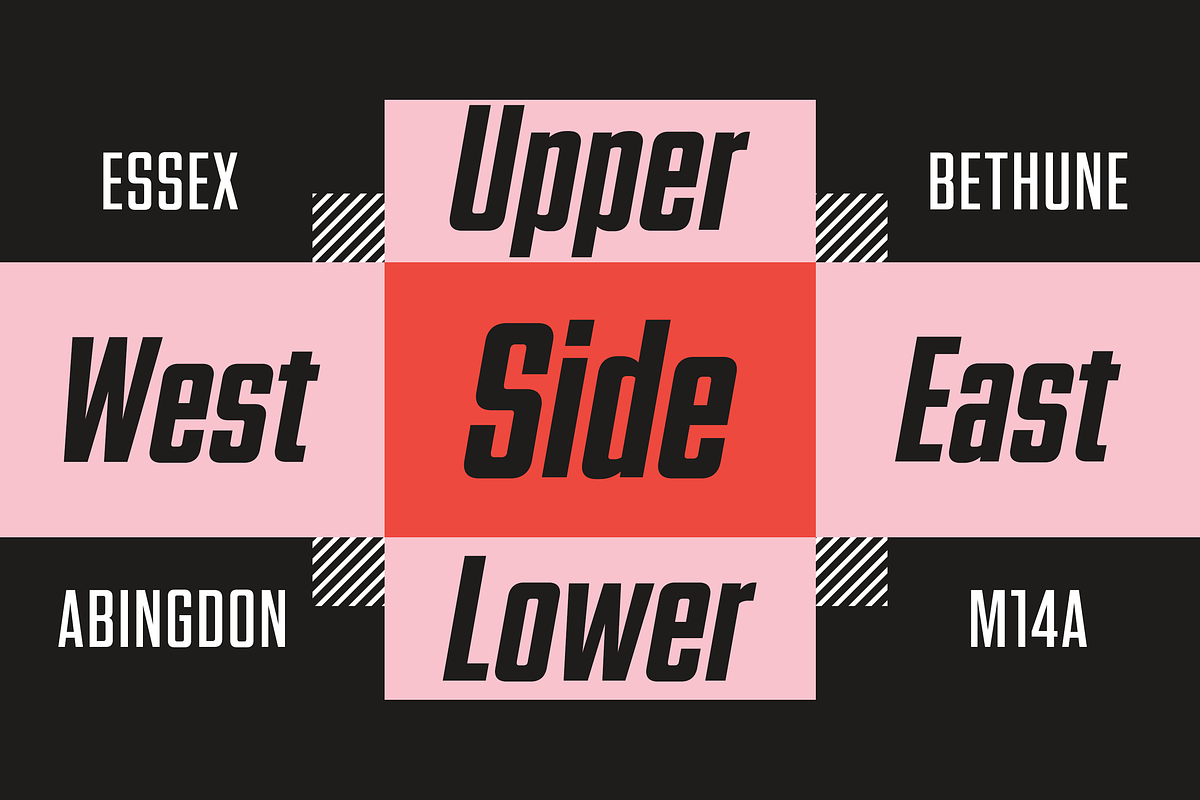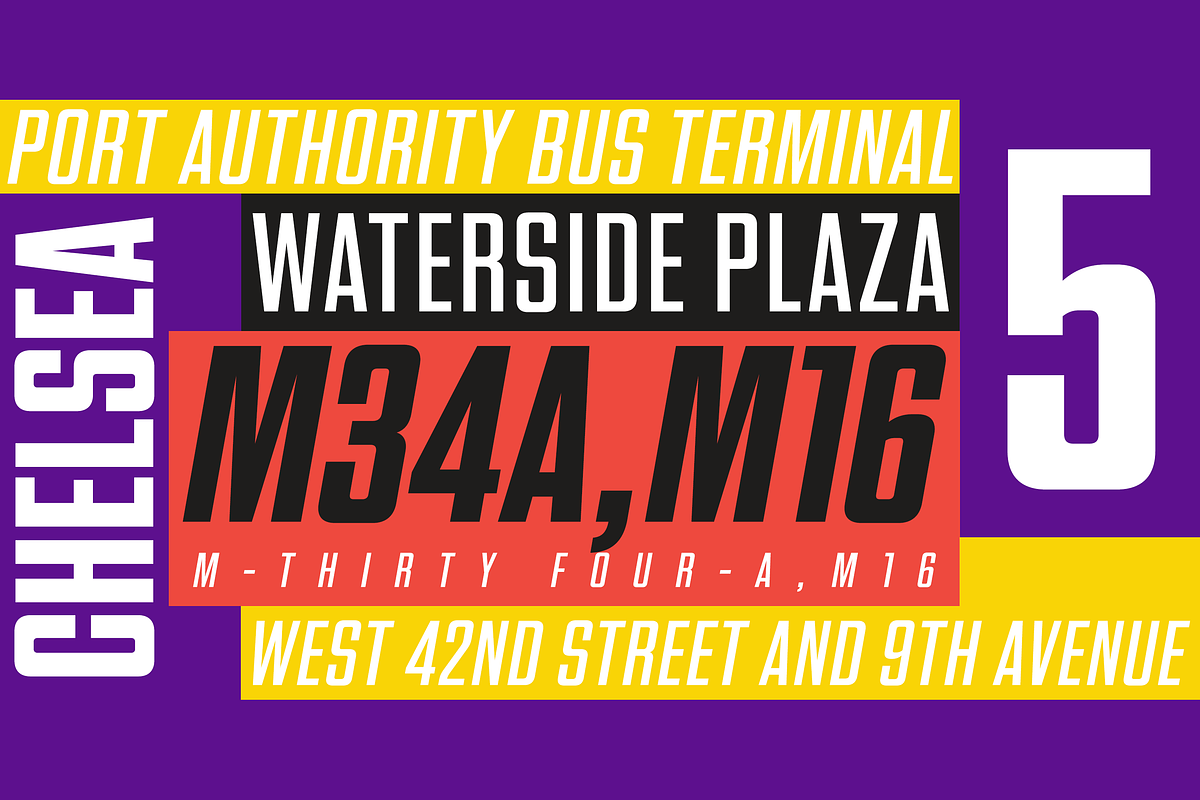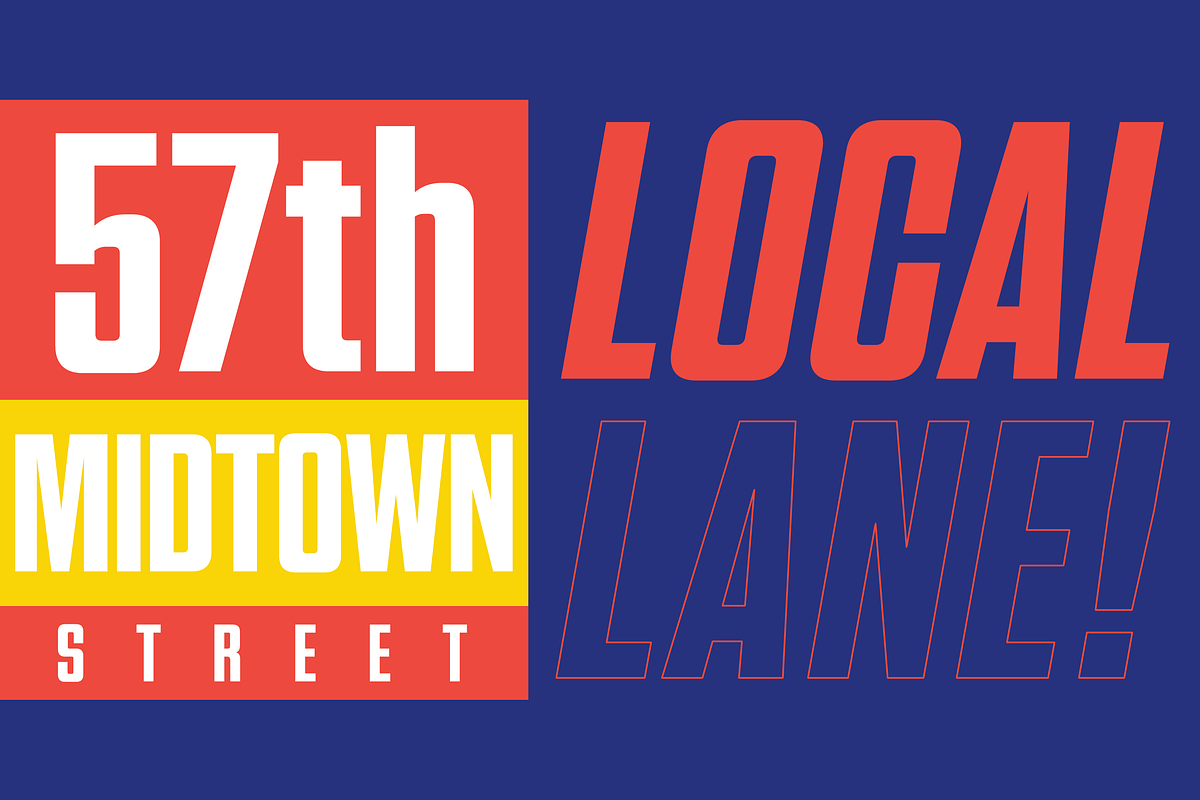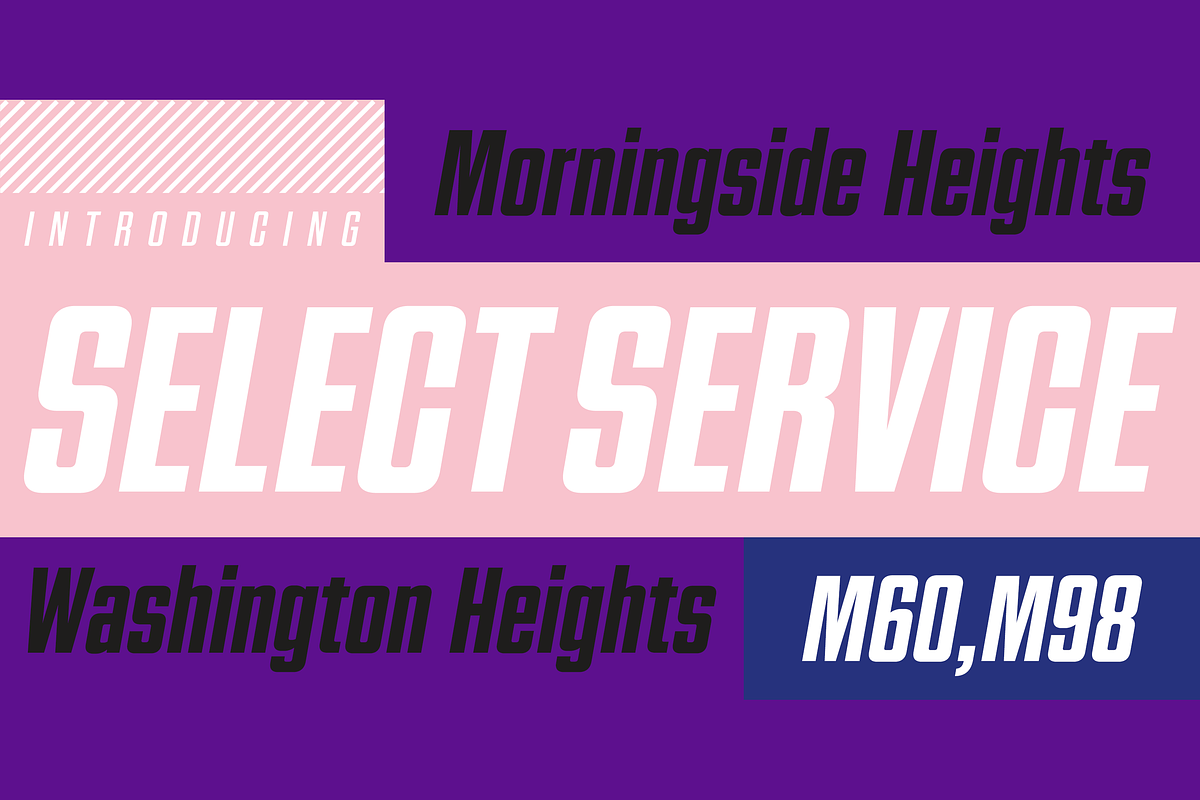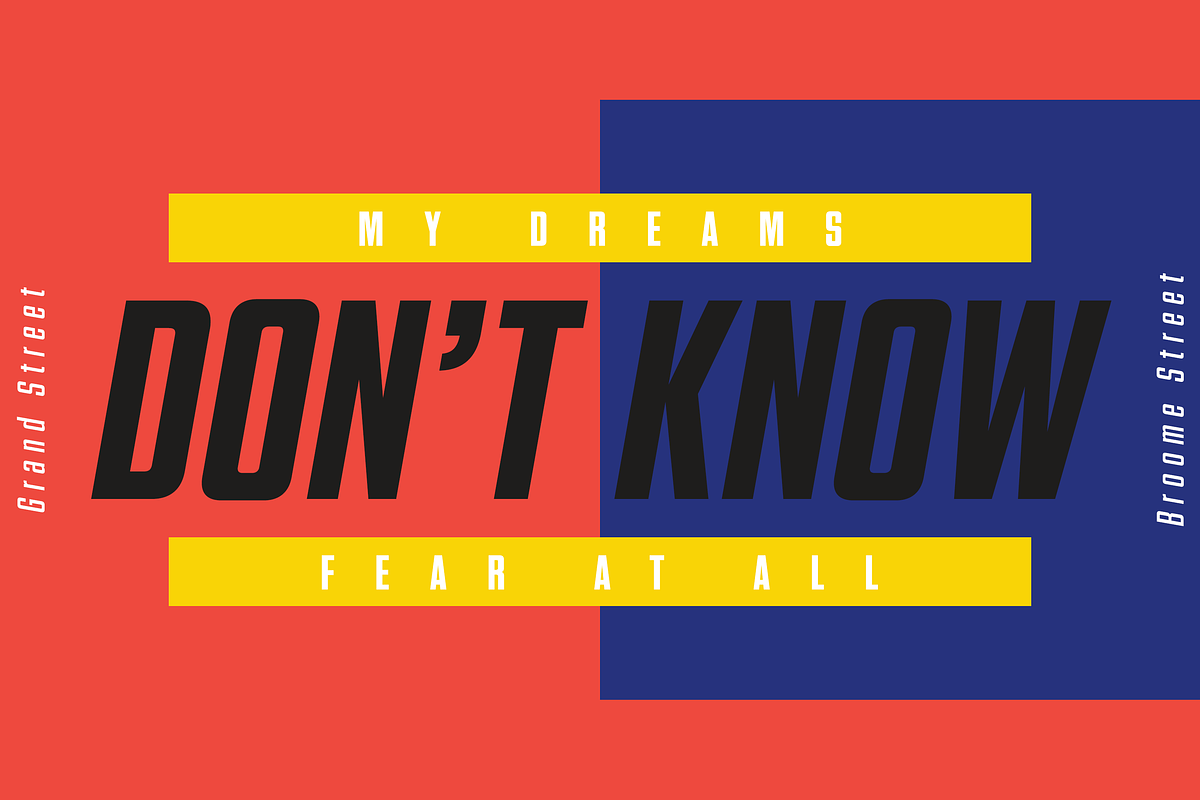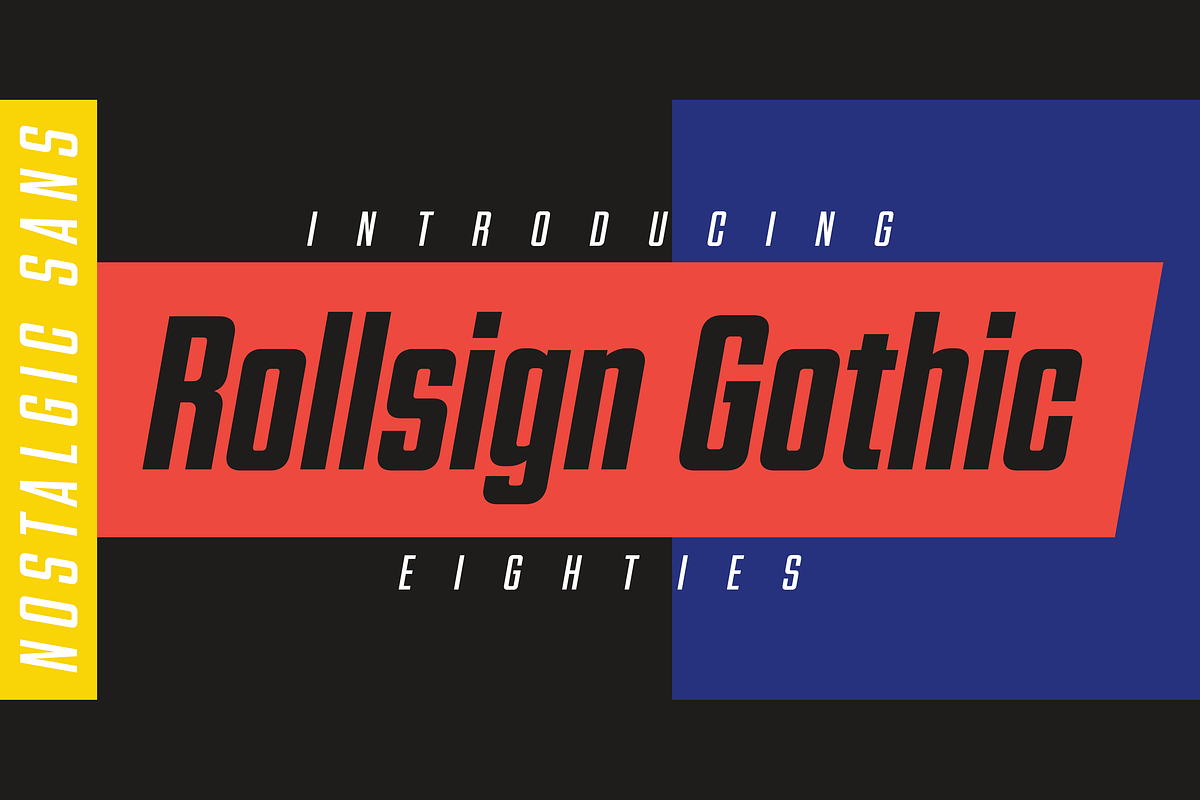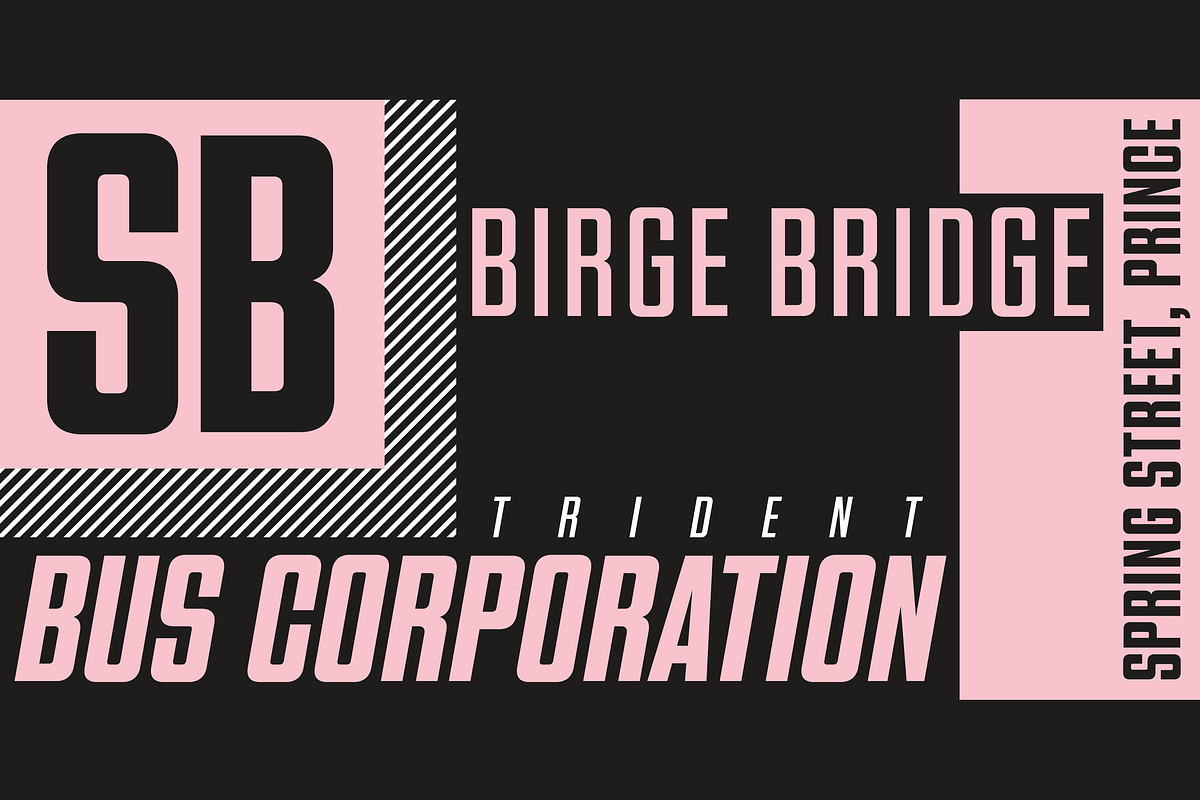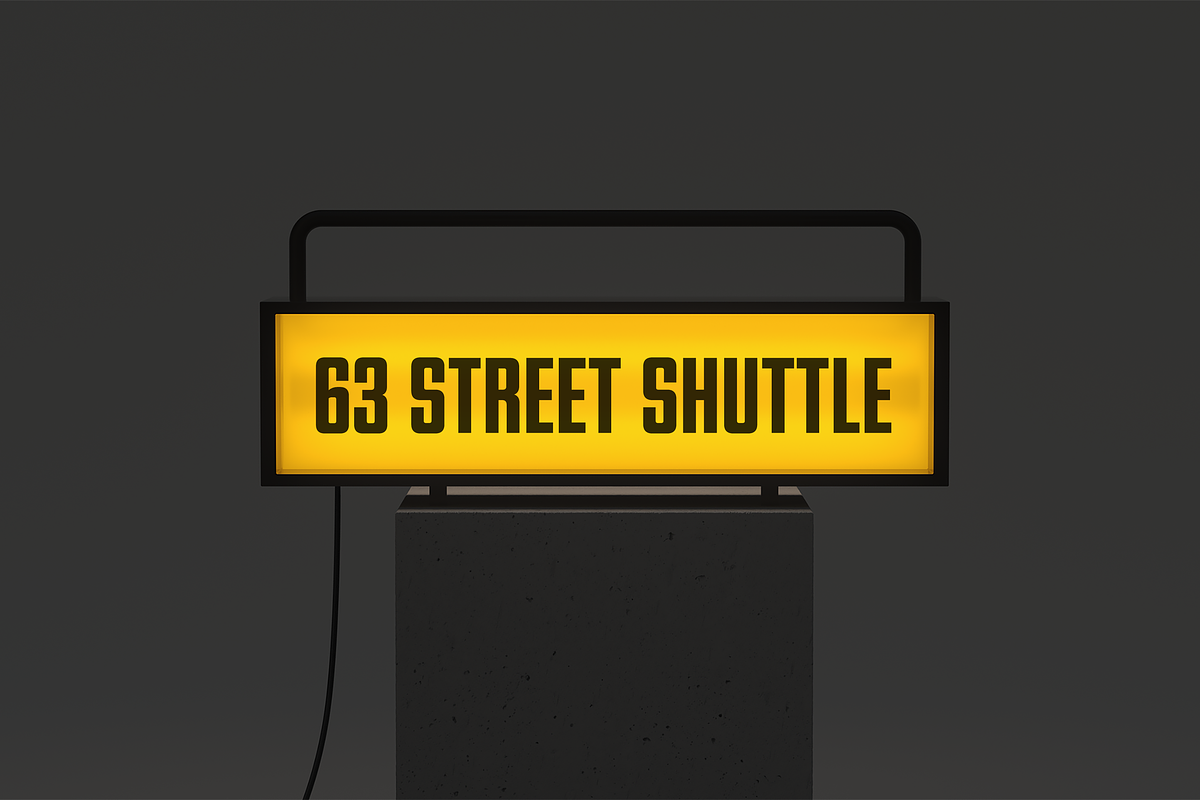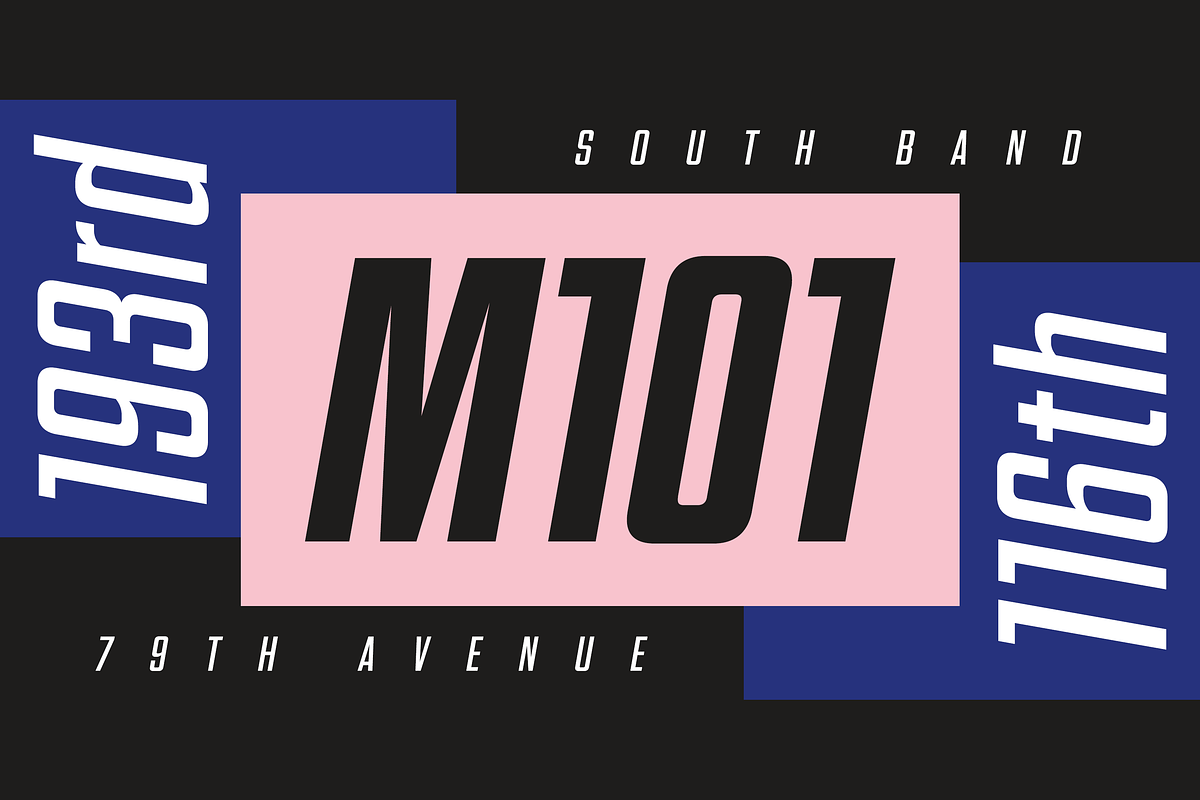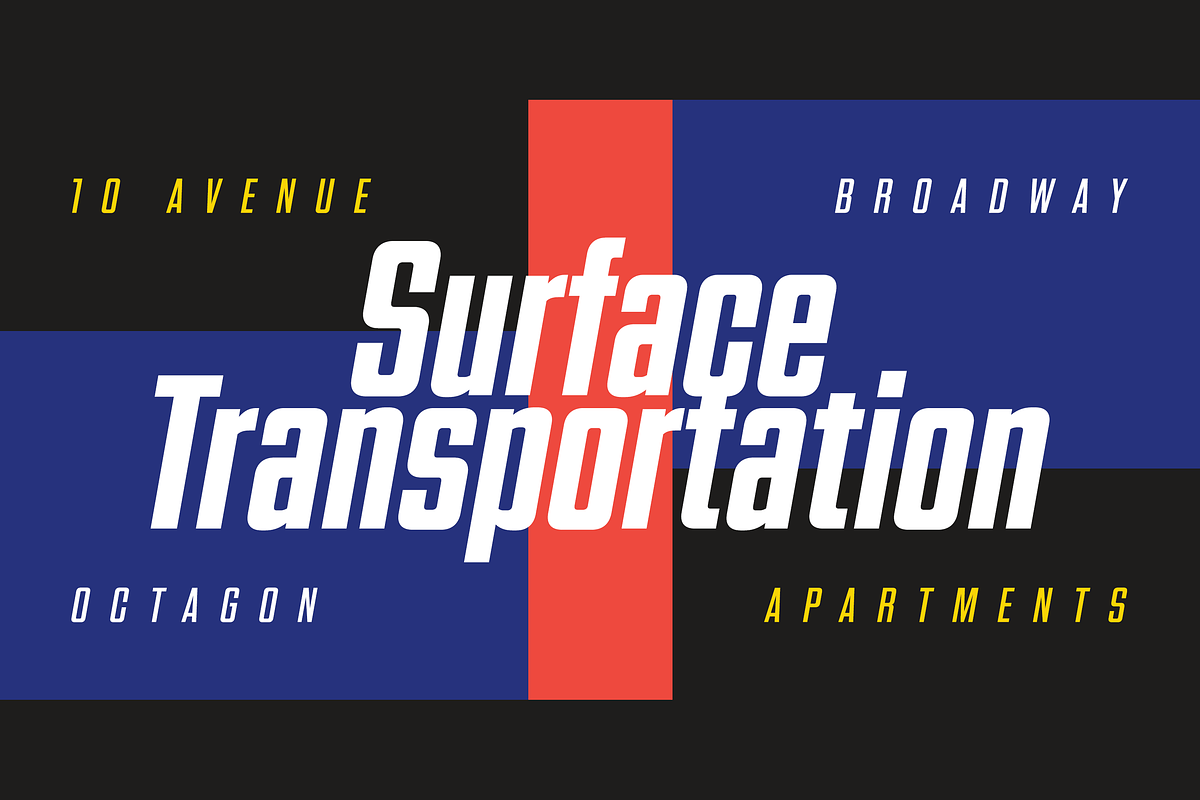
Rollsign Gothic
The original concept for this typeface was inspired by the rollsigns commonly seen on buses and trains—particularly those hand-drawn signs from the pre-digital era. The idea of creating a typeface based on these signs had been in the works for about a decade, but when it came time to actually start designing, the process proved to be more challenging than expected. Over the years, however, the direction and design language gradually became clearer.
To reflect the nature of rollsigns, which required a large amount of text to fit into a limited space, the typeface adopts a tall, narrow rectangular proportion as its structural foundation. It also preserves the utilitarian and handcrafted feel of the original signage, while emphasizing clarity and strength—qualities essential for legibility in such applications.
Of course, hand-rendered rollsigns are no longer in use today. Yet this typeface is designed for a wide range of contemporary applications, from posters and video titles to product packaging. It’s a typeface that commands attention, strongly appealing to viewers and consumers alike while effectively communicating the character and appeal of the product it represents.
The type family consists of seven weights, each with a corresponding italic, and supports a wide range of Latin-based languages.